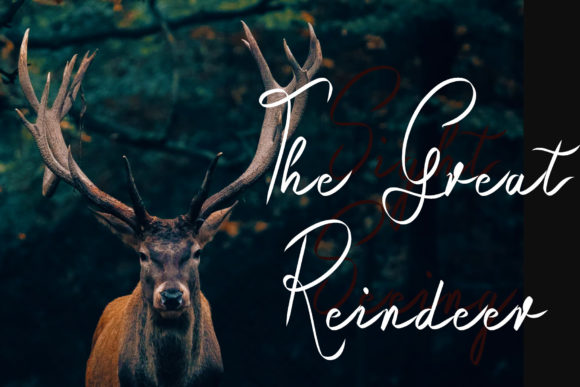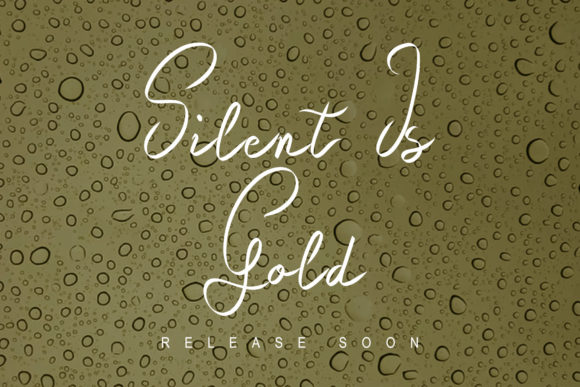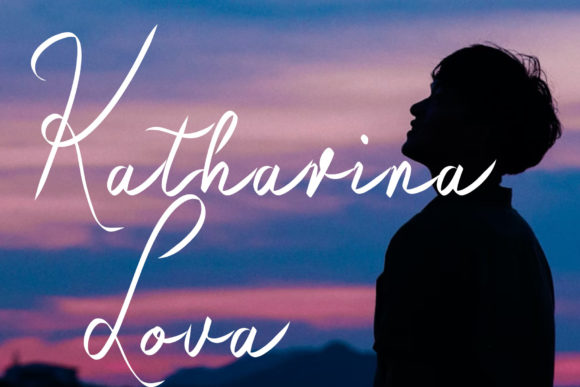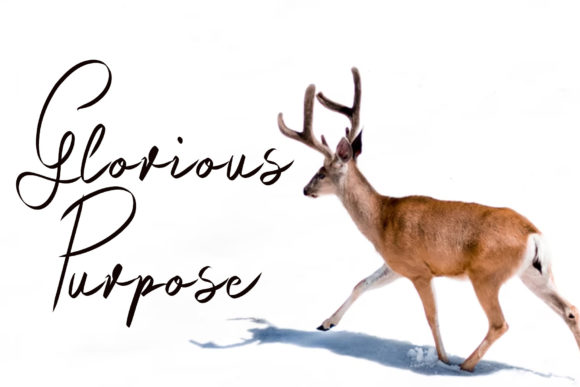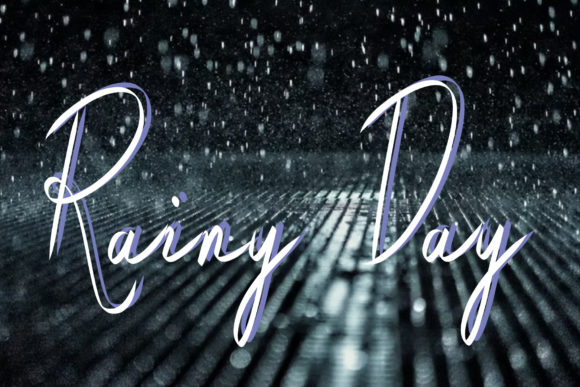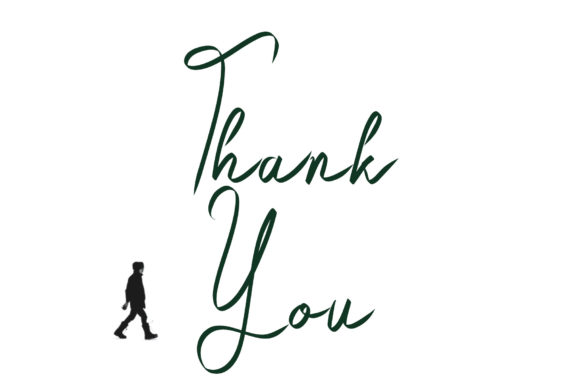
Raindeer Forest Font
Raindeer Forest is a beautiful and light handwritten font with a unique feel and a stunning impact. It will add a luxury spark to any design project that you wish to create!